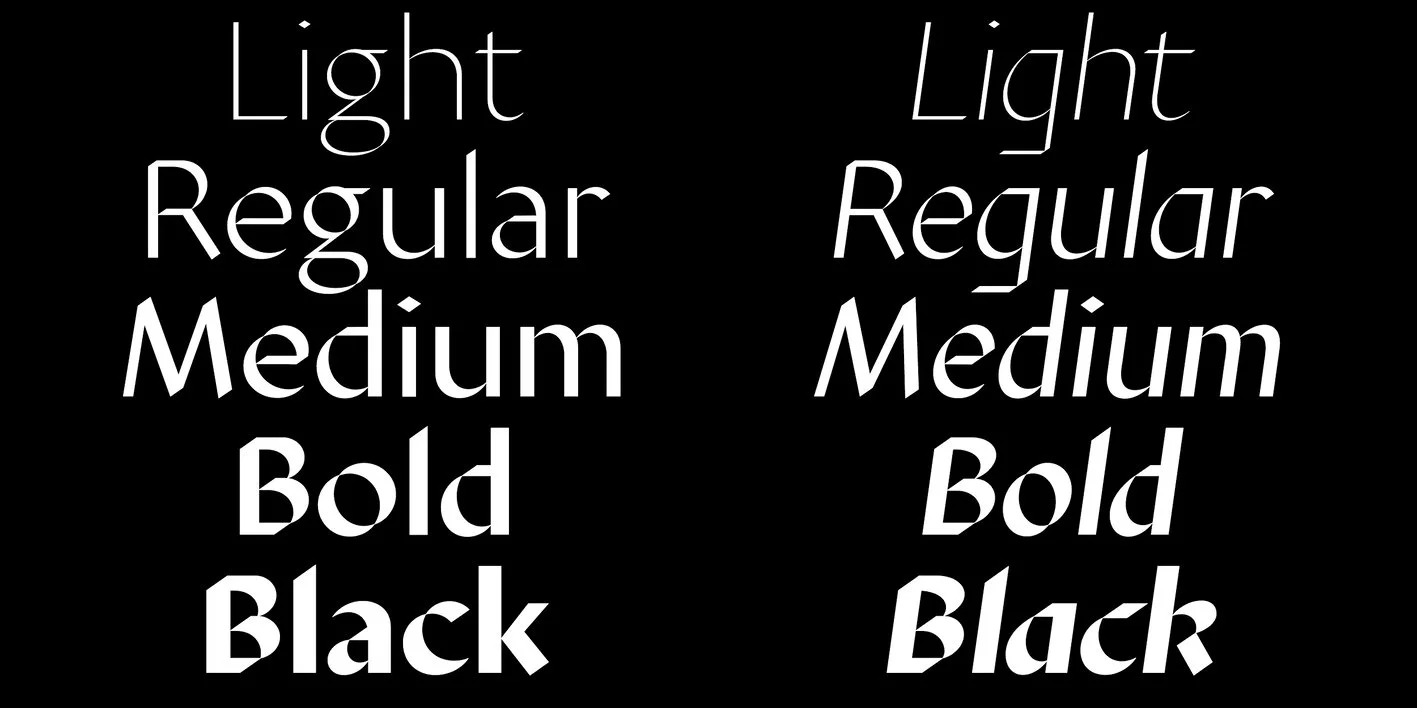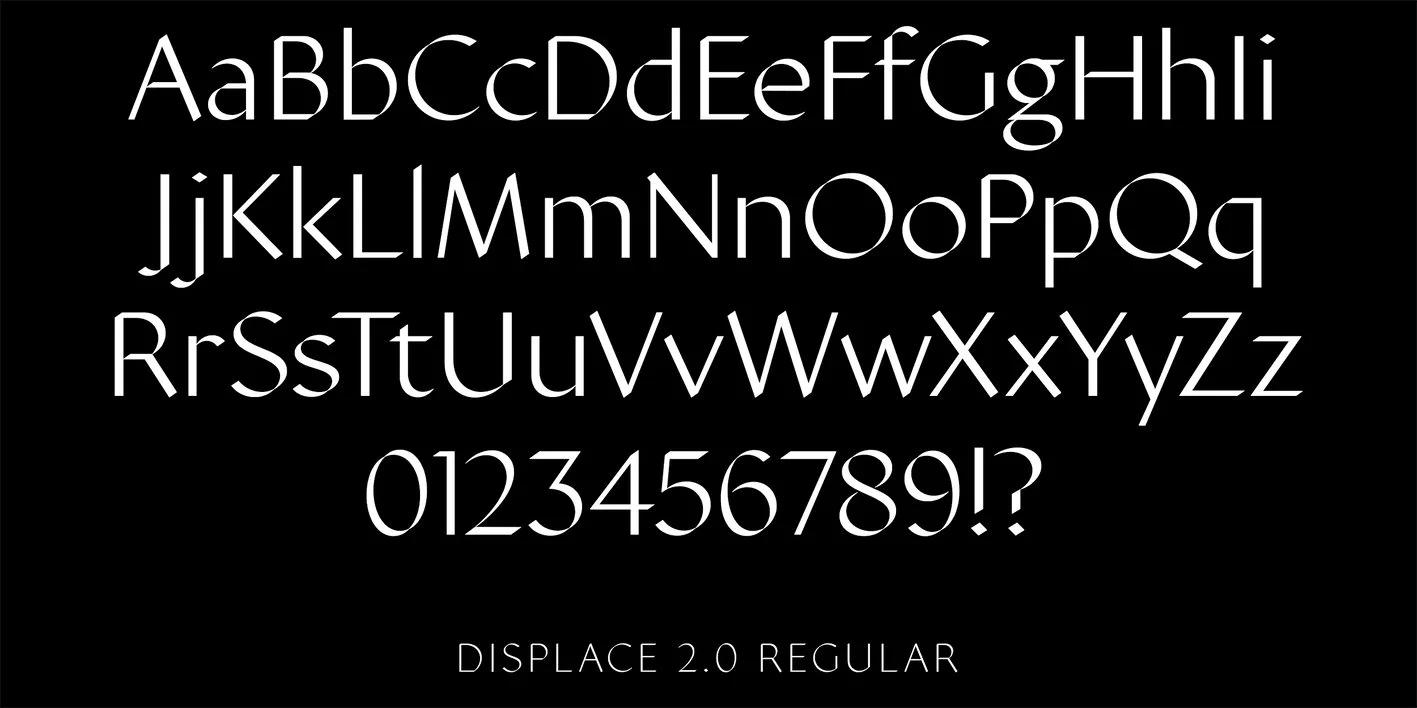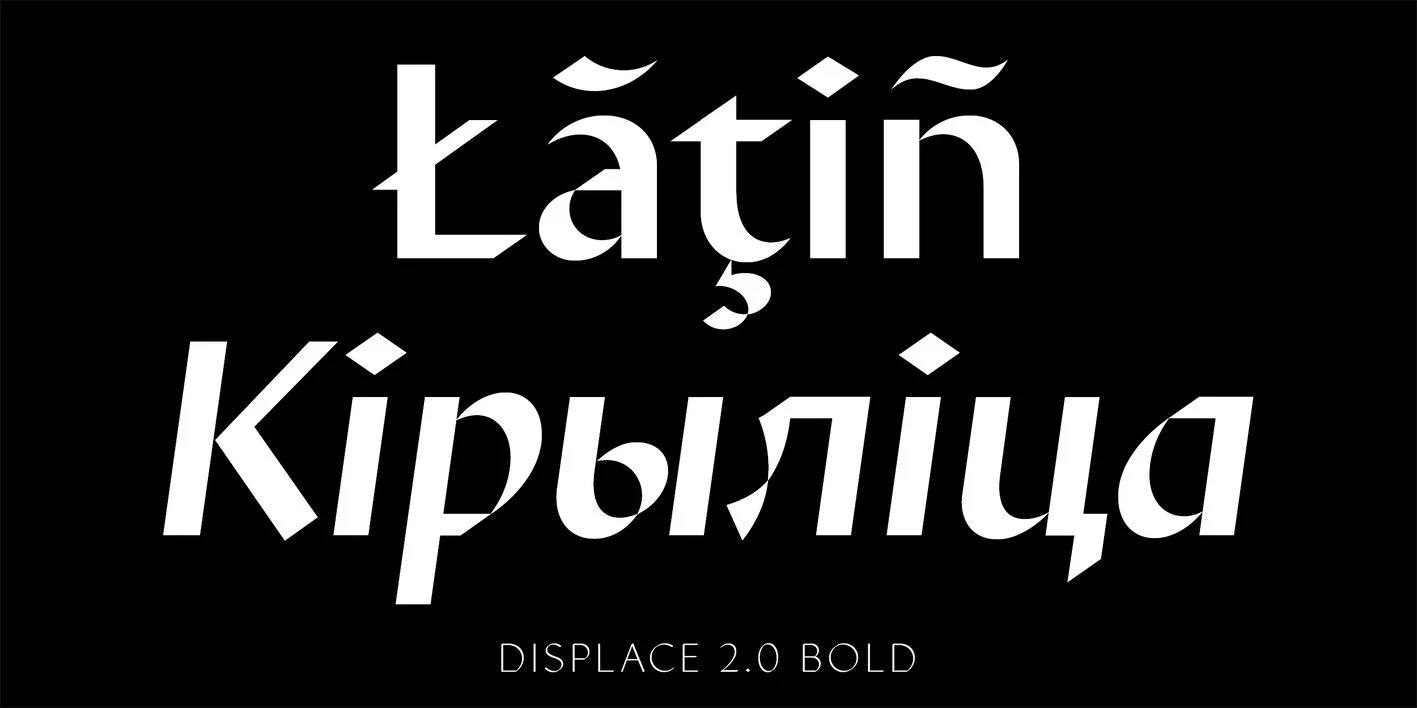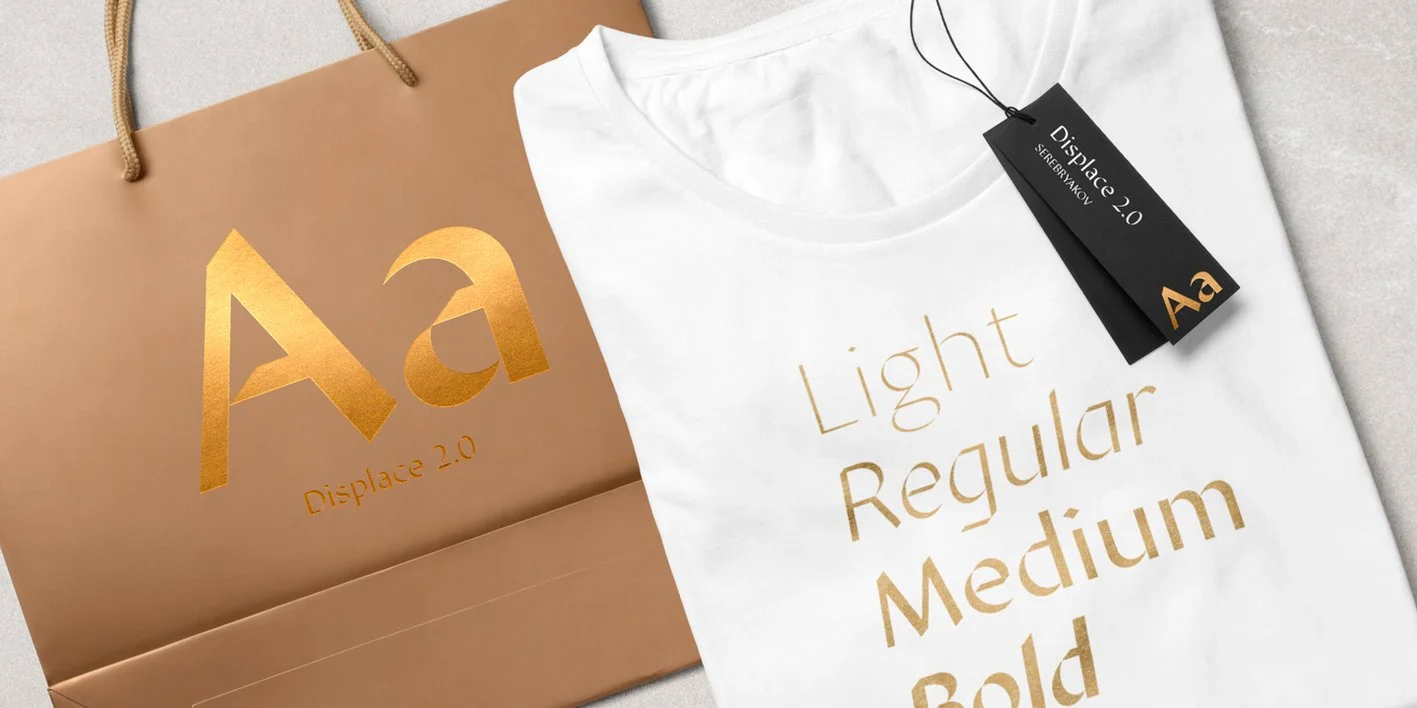
Displace 2.0 Font
There is a particular satisfaction in finding a typeface that delivers strong typographic hierarchy support without compromise. Displace 2.0 consistently provides it. The typeface brings a versatile sensibility to a broad range of creative disciplines, with visual harmony and precise spacing that holds up whether the work is print-first or screen-first.
In practice, Displace 2.0 proves particularly effective for web design, packaging design, poster creation, brand identity systems, editorial layouts. Designers reaching for it find that the type decisions feel resolved rather than laboured — a useful quality when client timelines are tight.
The range of applications extends to advertising campaigns, signage systems, annual reports, social media graphics. That breadth is deliberate: the proportions and spacing were stress-tested across a wide range of mock briefs before the typeface was finalised.
The consistent rhythm of Displace 2.0 across a full paragraph creates the kind of even grey value that makes extended reading comfortable, a detail that matters more in long-form content than its subtlety might suggest.
UX designers establishing typographic systems for digital products find Displace 2.0 a reliable choice for projects that demand both personality and restraint. The design avoids the self-conscious quirkiness that dates quickly, settling instead for considered distinctiveness that holds up over time.